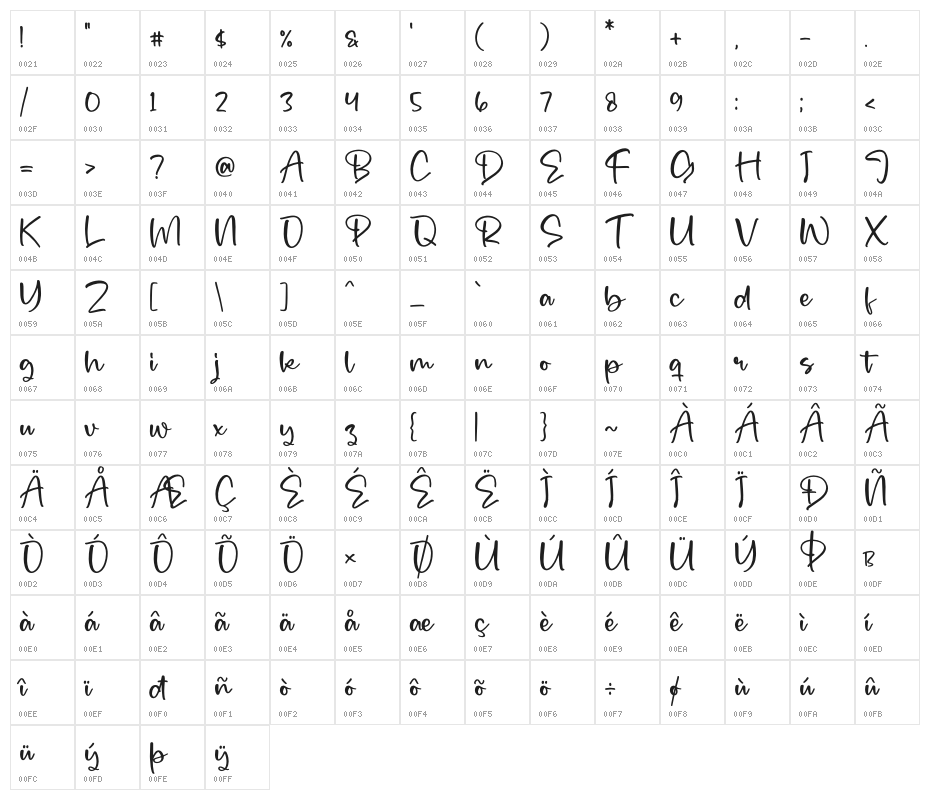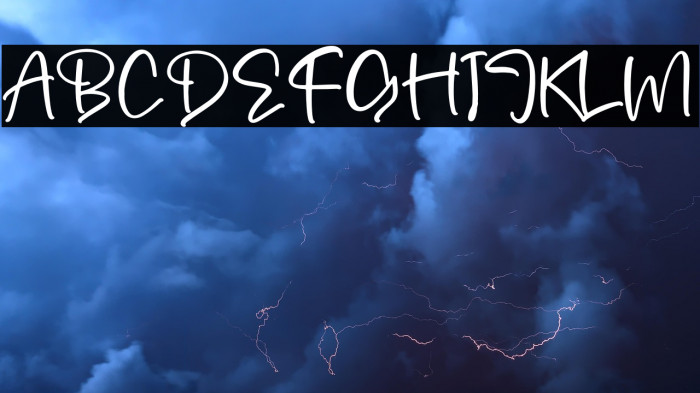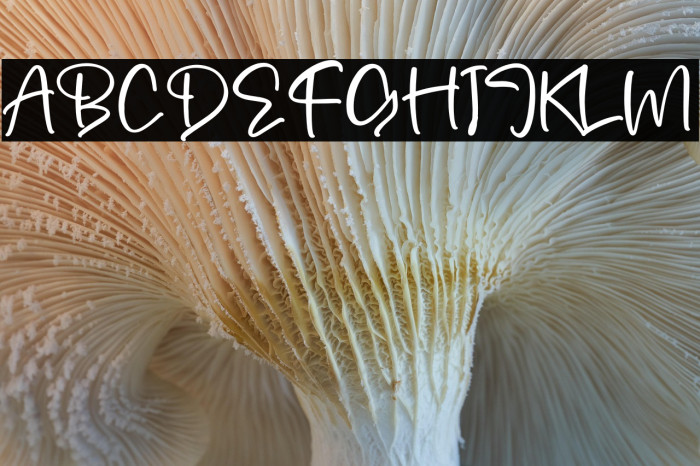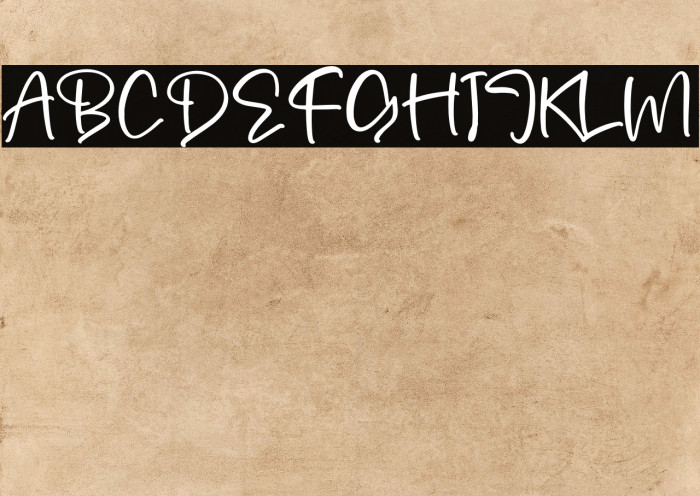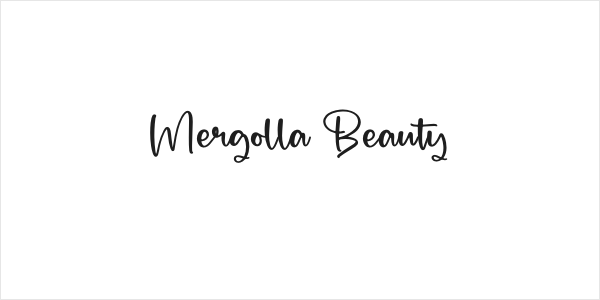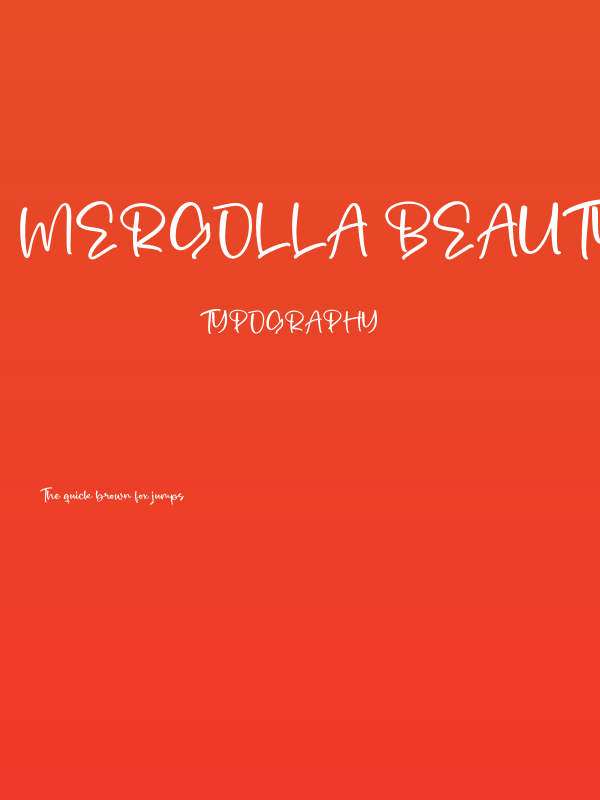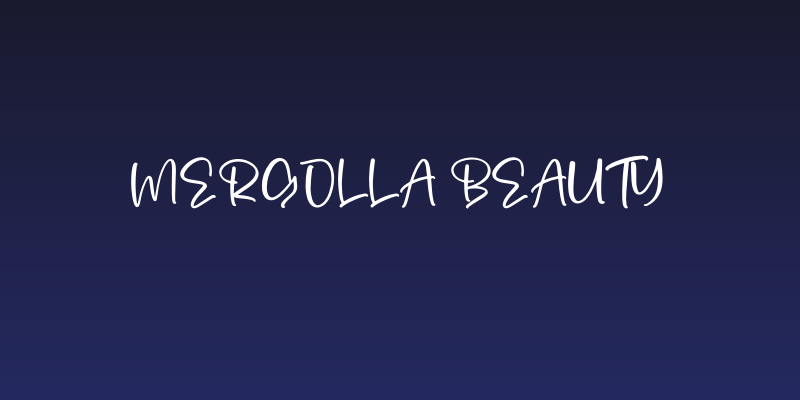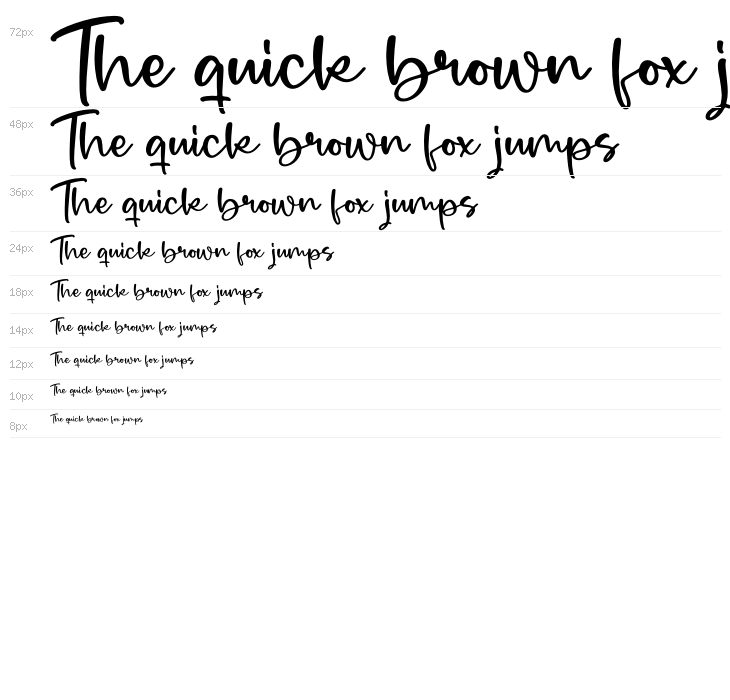
Mergolla Beauty Font
Mergolla Beauty Description
This font exudes a playful and casual elegance, characterized by its handwritten style that mimics natural penmanship. The uppercase letters are bold and slightly slanted, giving a dynamic and lively feel, while the lowercase letters maintain a consistent flow with rounded edges and smooth curves. The numbers and special characters follow the same aesthetic, ensuring a cohesive look across all text elements. This font is perfect for projects that require a personal touch, such as invitations, greeting cards, or branding materials that aim to convey warmth and approachability.
Overall StyleCasual, Elegant
Use CaseHeadlines, Logos, Invitations
Proposed ProjectsIdeal for invitations, greeting cards, personal branding, and creative projects.